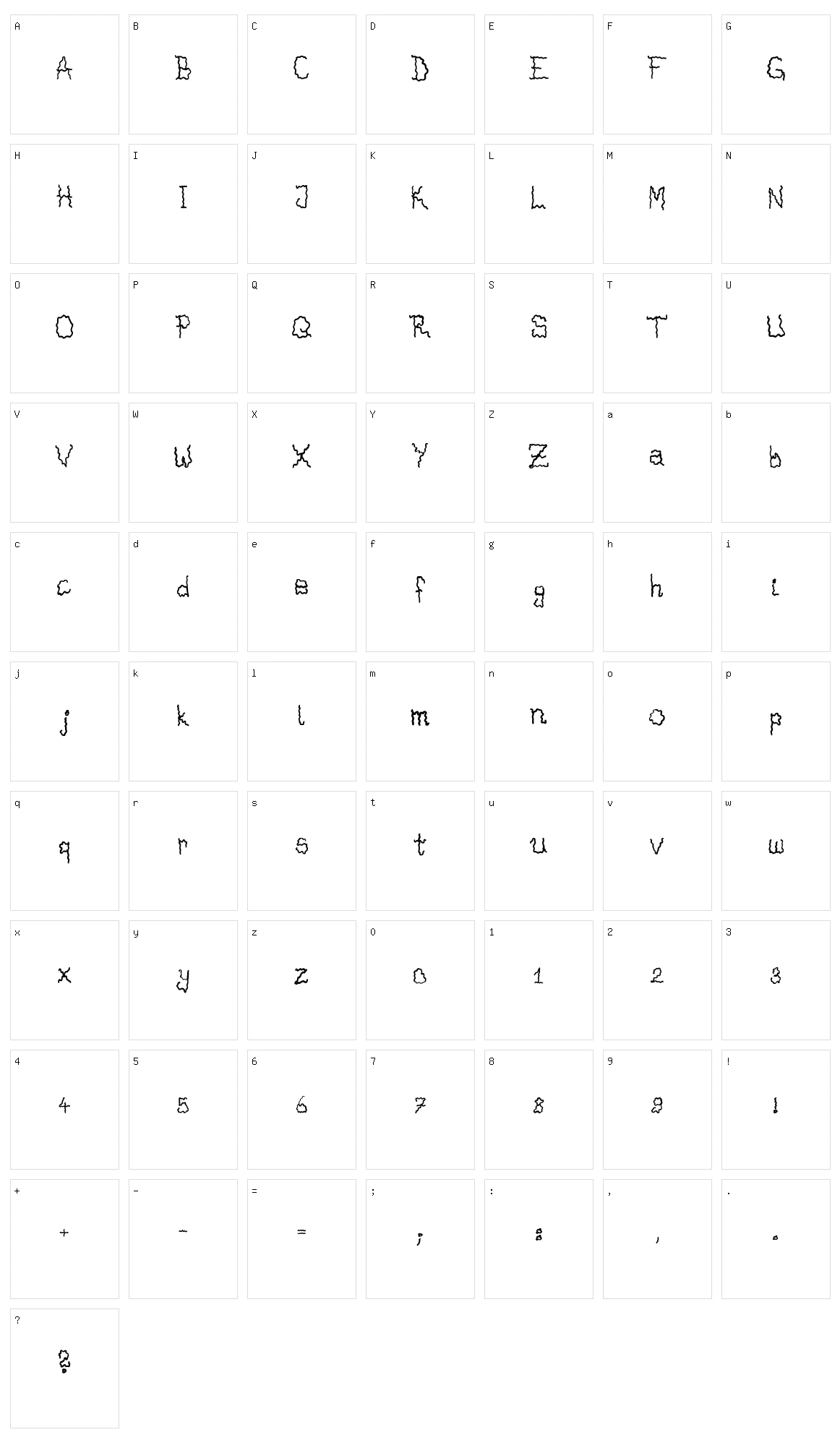
The free font Drunken Horror Ghost is carefully designed by Johannes Westphal, showcasing a thoughtful balance of creativity and usability and falls under the Horror font style. When you download the ZIP file, it contains only 60.31 KB of font files, making it lightweight and quick to download. Please review the license details below to understand permitted usage and distribution rights. If license information is not available, we recommend using this font for personal projects only or contacting the author directly for commercial usage permissions.